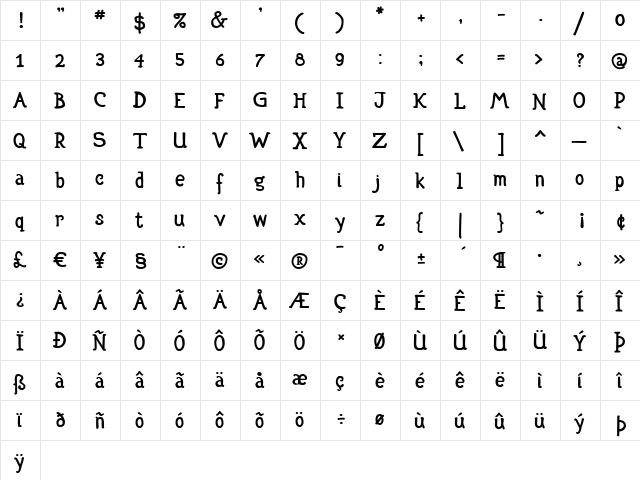
P22Escher Regular
Design Context for P22Escher Typeface
P22Escher offers clean, dependable letterforms without strong stylistic allegiance, making it a practical choice for designers who need flexibility.